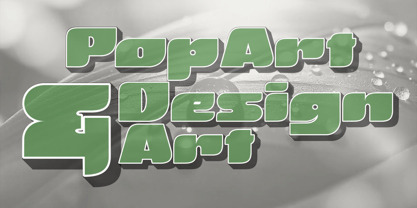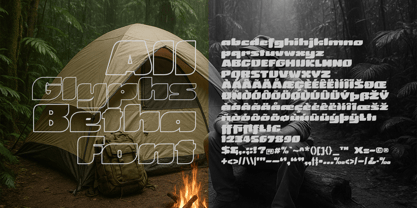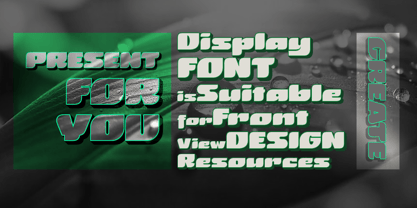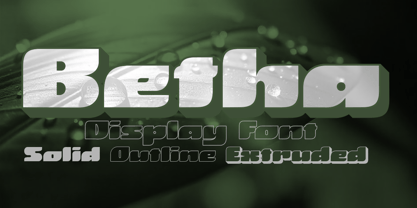
Betha
by Groen Studio
The Betha Font Family was designed by Roiyani Teungku and published by Groen Studio. Betha contains 3 styles and family package options.
Betha is an urban font in the style of modern typography. In creating a design, Betha is also equipped with additional extruded and outline. as a function to create an extrusion effect for this font.
Betha Solid is supported by Betha Outline and Betha Extruded fonts, both of which are families of the Betha Solid Font, so your design looks 3D.
Betha is a font family that has 3 variations, plus the drop shadow of each extrude and the line separation between Betha Solid and Betha Extruded, this is a modern typography model.
Betha works well in all brands, logos, magazines, films. Different weights give you a wide range of applications, while the outlined font gives a real modern feel to every project.